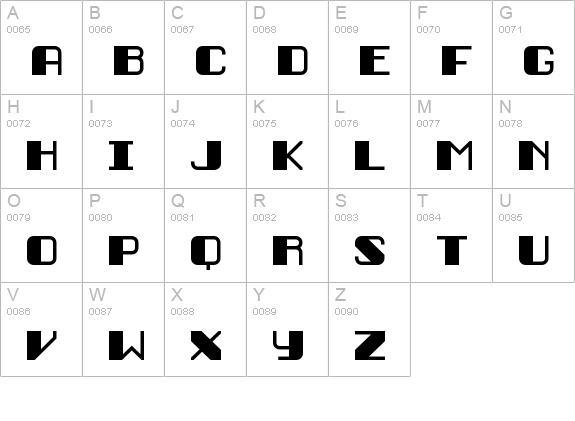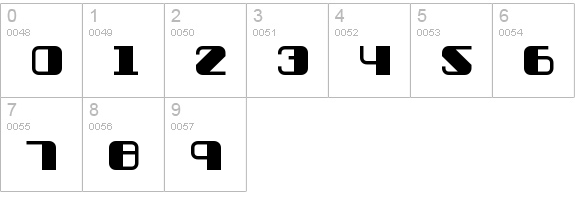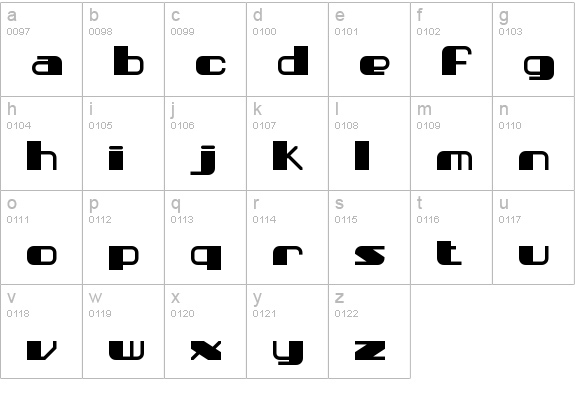
Persuasion BRK Font Details
Introducing Persuasion BRK, a captivating font that effortlessly combines elegance and modernity. With its sleek and stylish design, Persuasion BRK is the perfect choice for any project that requires a touch of sophistication. This font features clean lines and sharp angles, creating a crisp and polished look that is sure to make a lasting impression. Whether used for logos, headlines, or body text, Persuasion BRK commands attention and adds a hint of refinement to any design. What sets Persuasion BRK apart is not only its stunning aesthetics but also its accessibility. This font is freely available to download at FontsMarket.com, making it accessible to designers, creatives, and enthusiasts alike. Its availability at no cost ensures that quality typography is within reach for everyone, regardless of budget or resources. Persuasion BRK's versatility is another noteworthy aspect. It effortlessly adapts to various design applications, seamlessly fitting into both digital and print projects. Its wide range of weights and styles provides even more flexibility, allowing you to create unique and cohesive designs with ease. Whether you're working on a branding project, a website design, or even a personal invitation, Persuasion BRK is the ultimate font choice for those seeking a perfect balance between modernity and sophistication. Experience the power of Persuasion BRK today, and elevate your designs to new heights. Download this remarkable font for free at FontsMarket.com, and let your creativity flourish.